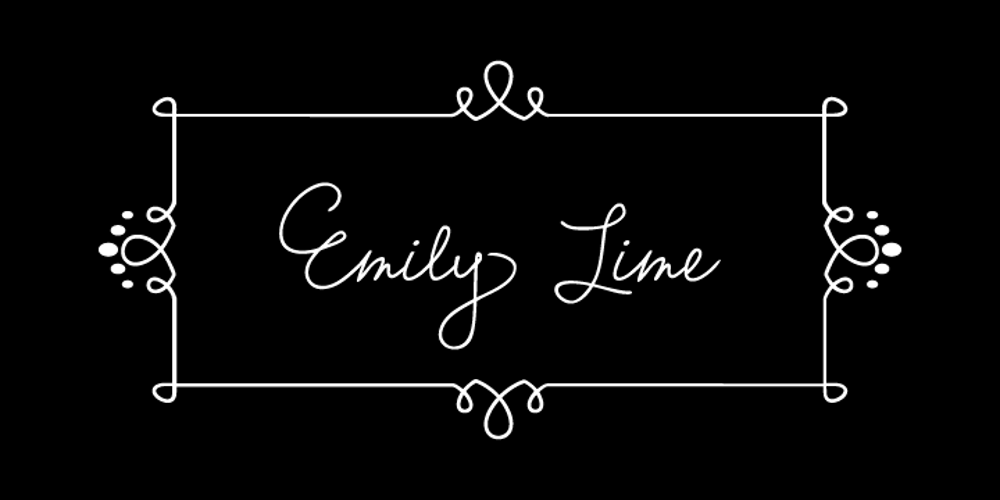
Emily Lime
Emily Lime font
Emily Lime Font Family was designed by Emily Conners and published by Emily Lime. Emily Lime contains 8 styles and family package options. Emily Lime is the namesake font – and the first of many to come from this up and coming foundry. It’s a fun, fully connected script with open type features to help with flow and readability. This great handwriting font includes other features to help make each creation unique and interesting – swashes, letter embellishments, alternates, etc. Plus, it has a separate font to build-your-own frames! The number of frame designs you can create are limitless!